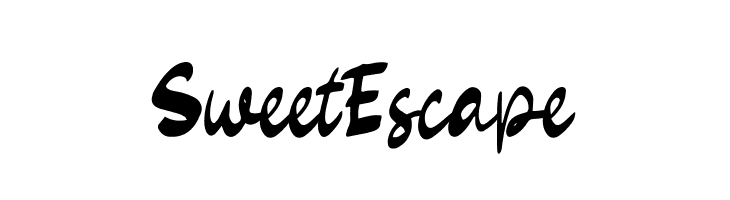
A bold, playful script font with connected characters and a lively style.
A playful, handwritten font with thin, flowing lines and a whimsical style.
A bold, cursive font with an italic slant, offering a dynamic and expressive style.
A bold, playful script font with a modern, handwritten feel.
A dynamic and flowing script font with elegant, cursive letterforms.
( Konstantine Studio - konstantinestudio.com/ )
A delicate and elegant handwritten font with fluid, natural strokes.
( Haksen Letters - Sarwo Edhi Prayitno )
A playful and elegant script font with flowing, interconnected letters.
A lively and elegant script font with flowing, cursive letterforms.
A cursive script font with elegant, flowing strokes and an italic slant.
A bold, playful font with rounded, whimsical characters and subtle cutouts.